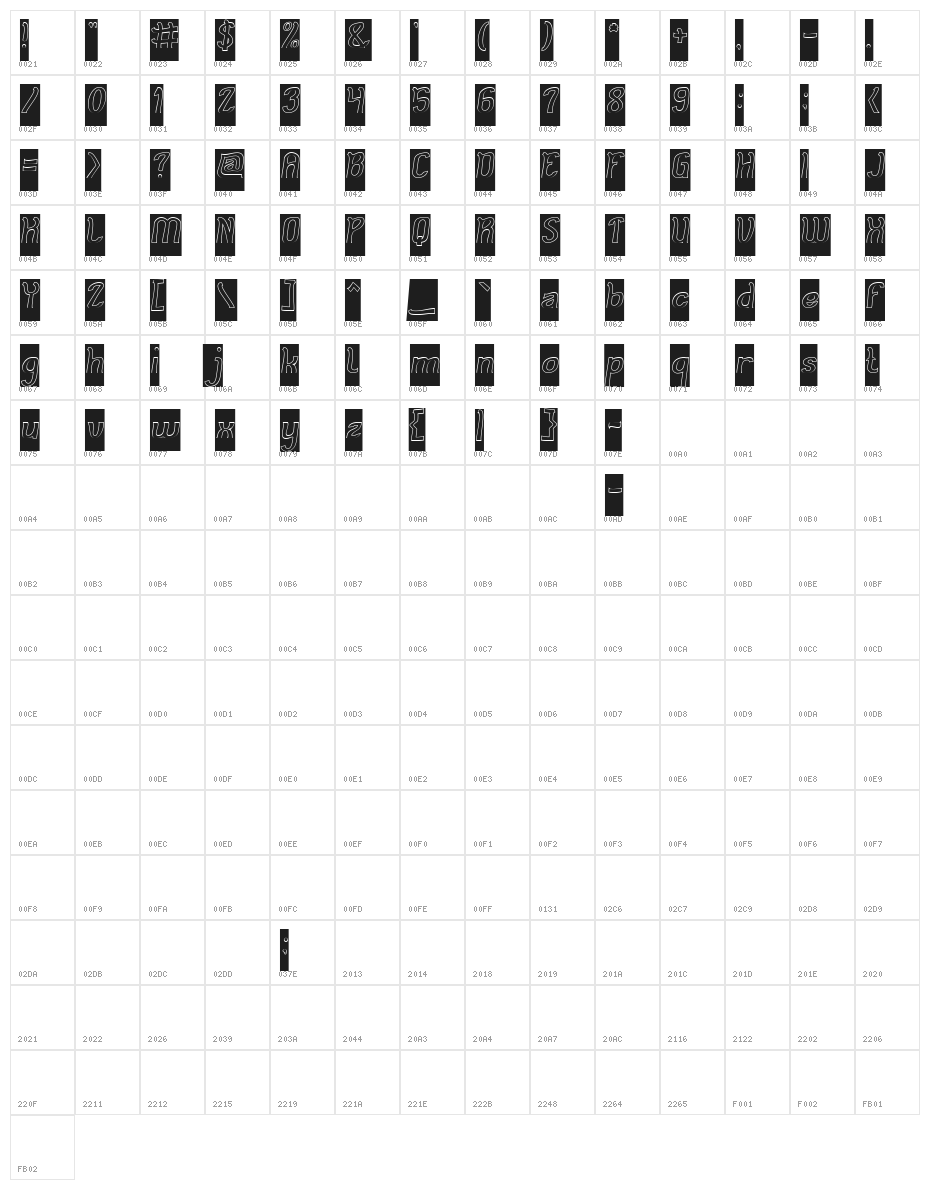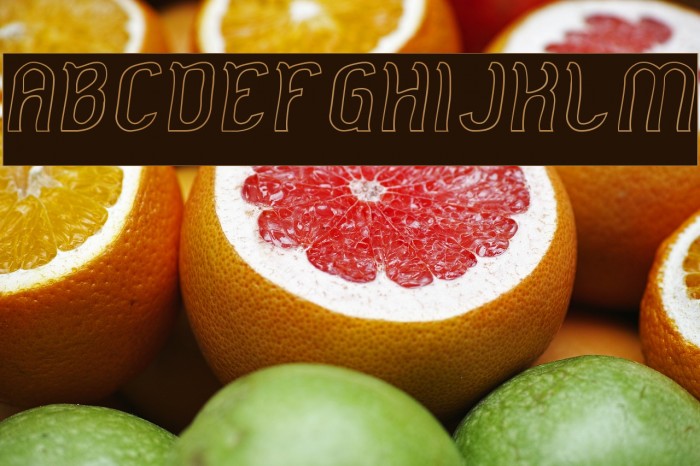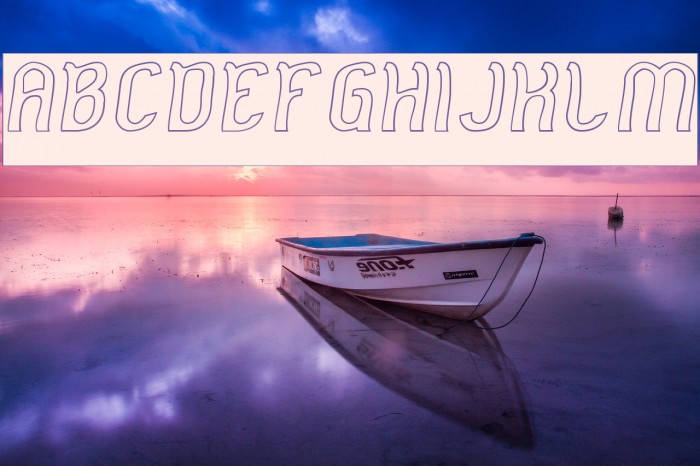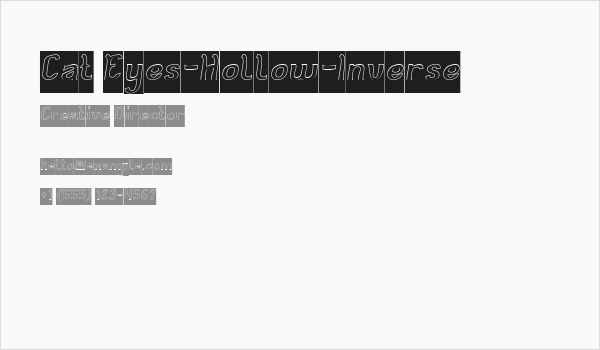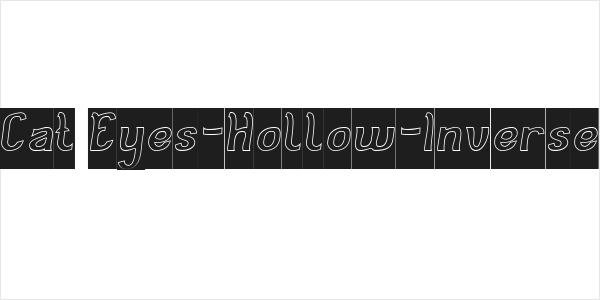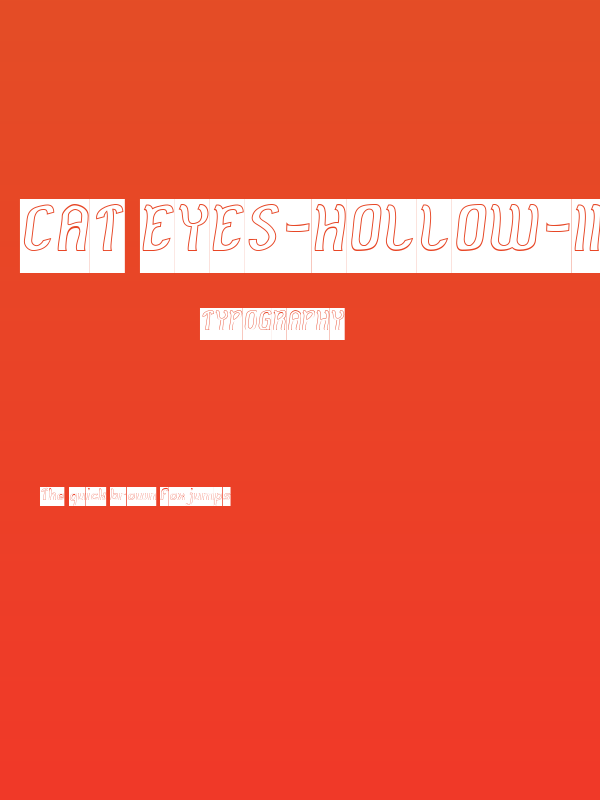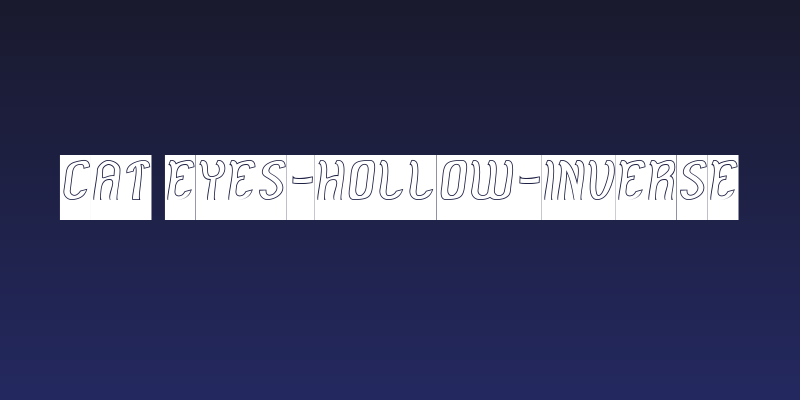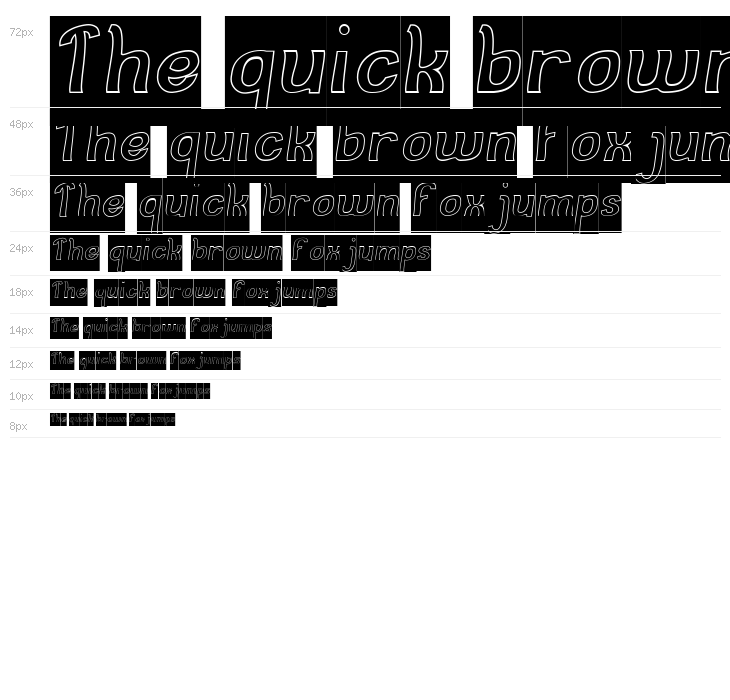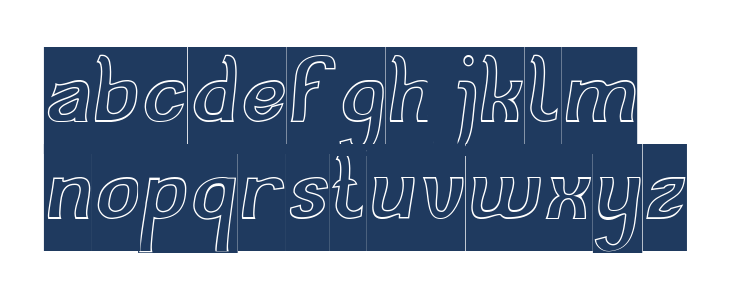
Cat Eyes-Hollow-Inverse Font
Cat Eyes-Hollow-Inverse Description
This font features a unique hollow design with a playful and artistic flair. The characters are outlined, giving them a distinct, airy appearance that stands out against dark backgrounds. The uppercase letters have a bold presence with a slight slant, adding a dynamic feel. Lowercase letters maintain the same hollow style, ensuring consistency throughout the typeface. The numerals are equally stylized, with a whimsical touch that complements the overall design. Special characters are creatively integrated, maintaining the font's cohesive look. This font is ideal for projects that require a standout, artistic typeface.
| Use Case | Logos, Posters, Artistic Branding |
| Proposed Projects | Perfect for creative projects such as posters, logos, and artistic branding materials. |